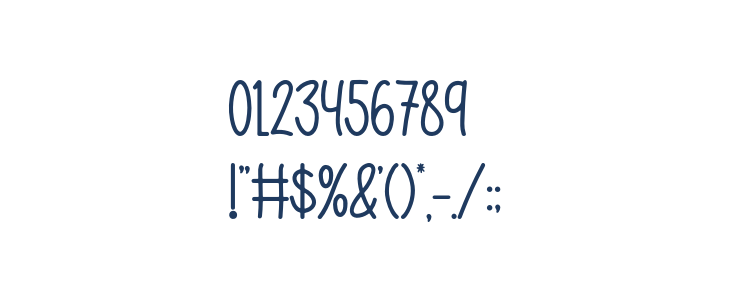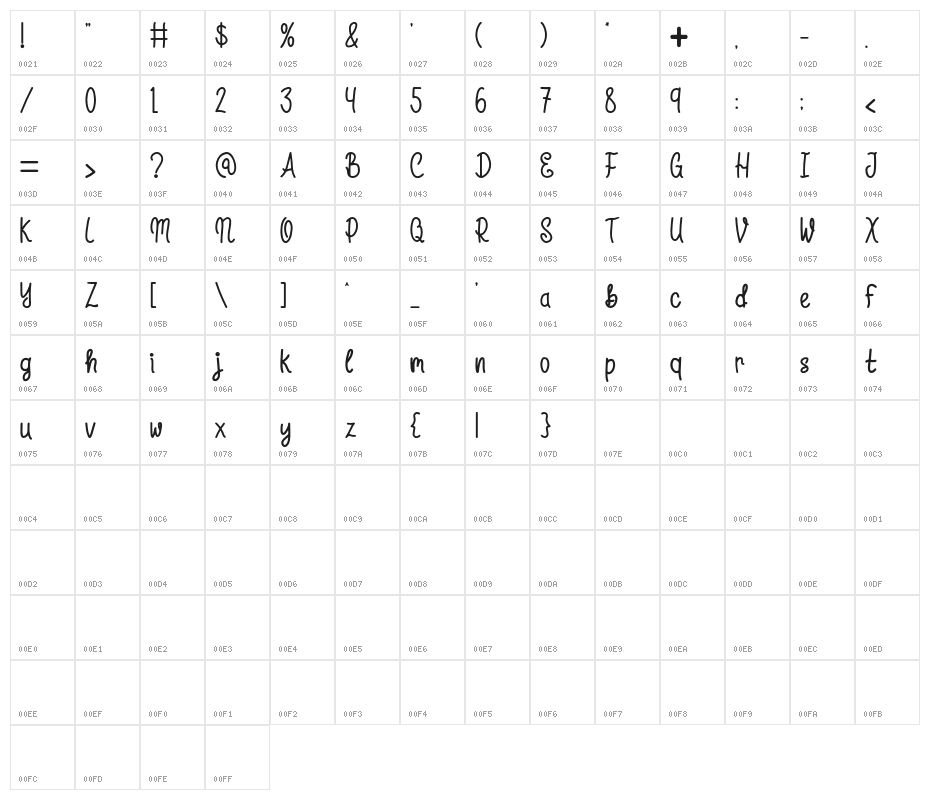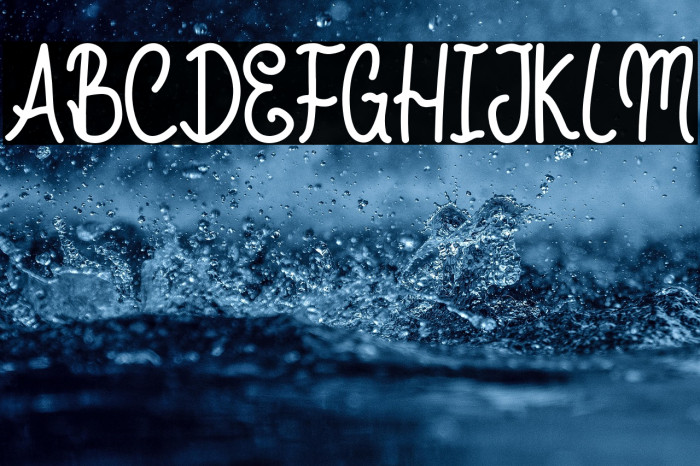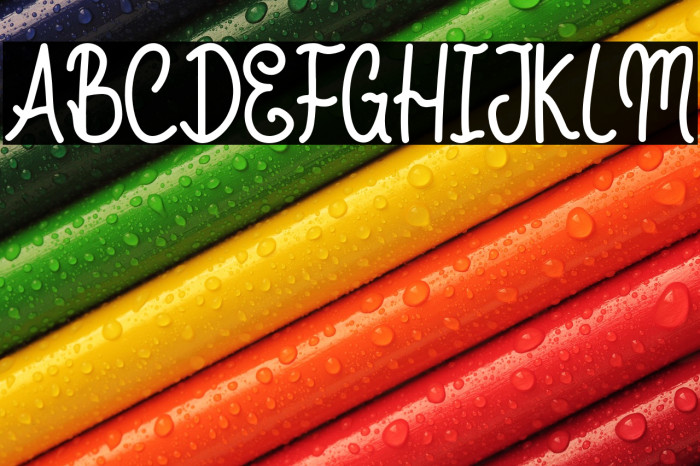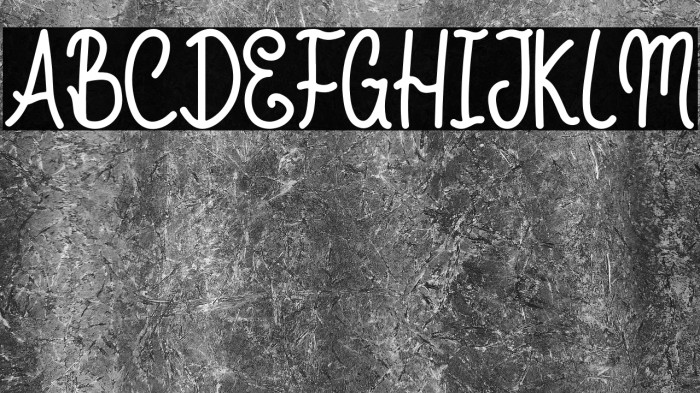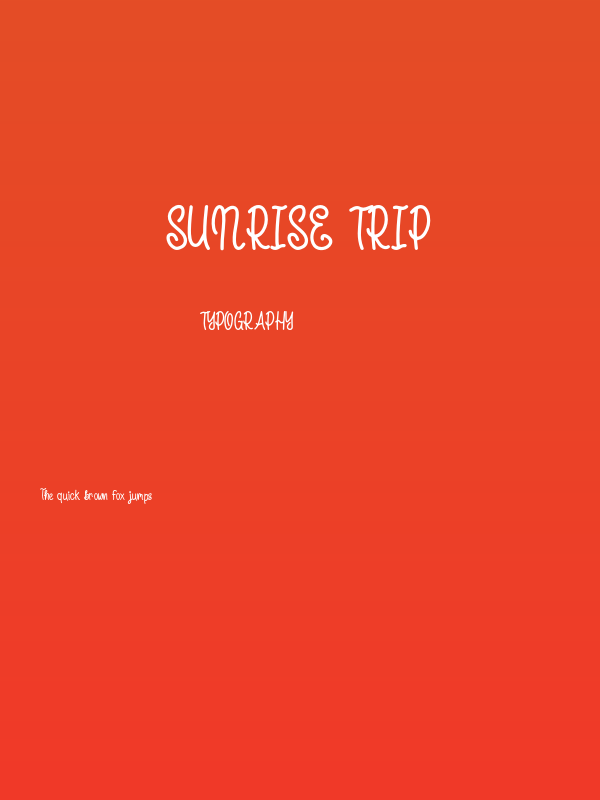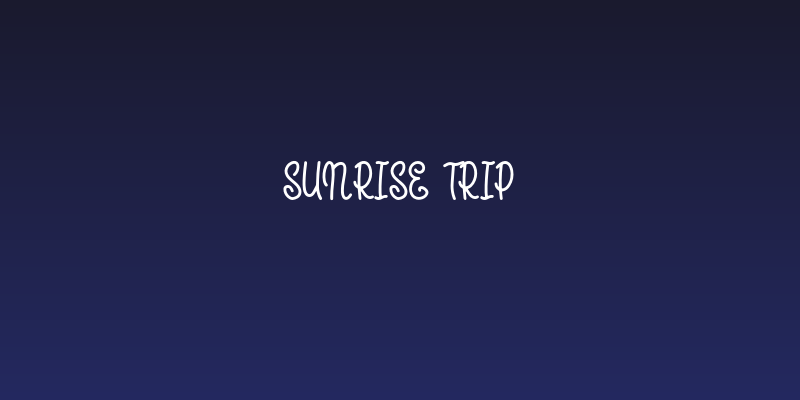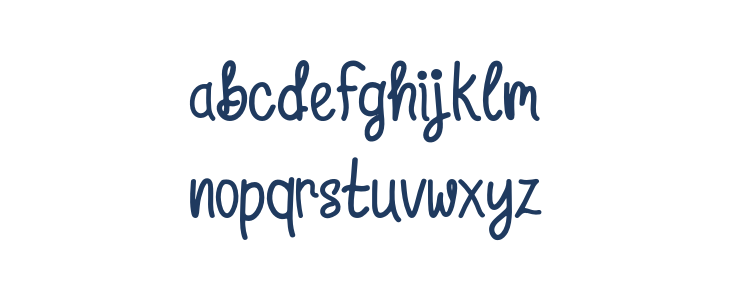
Sunrise Trip Font
Sunrise Trip Description
This font features a playful and whimsical handwritten style, characterized by its smooth, flowing curves and slightly irregular letterforms. Each character exhibits a unique, organic feel, with varying stroke widths that add a sense of dynamism and movement. The uppercase letters are bold and prominent, while the lowercase letters maintain a consistent flow, enhancing readability. Numbers and special characters are crafted with the same playful touch, making them suitable for creative and informal designs. The overall appearance is friendly and approachable, perfect for projects that require a personal touch.
| Proposed Projects | Ideal for greeting cards, children's books, playful branding, and creative social media graphics. |